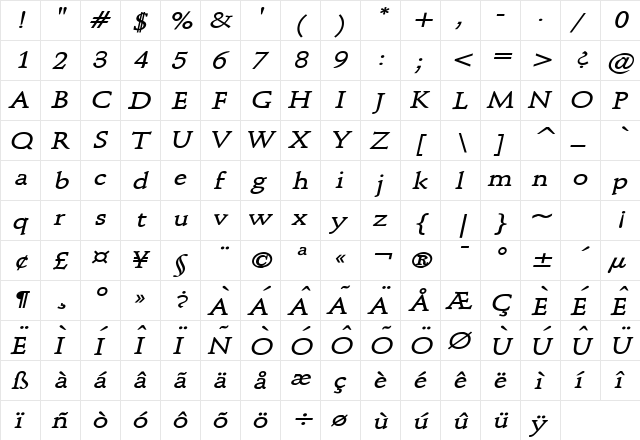
Schroeder Wide Bold Italic
Design Context for Schroeder Wide Typeface
Schroeder Wide is a composed and adaptable typeface that performs quietly and consistently across a wide range of design contexts. The slanted form adds forward momentum and visual energy. The heavy weight commands attention and anchors typographic hierarchies.